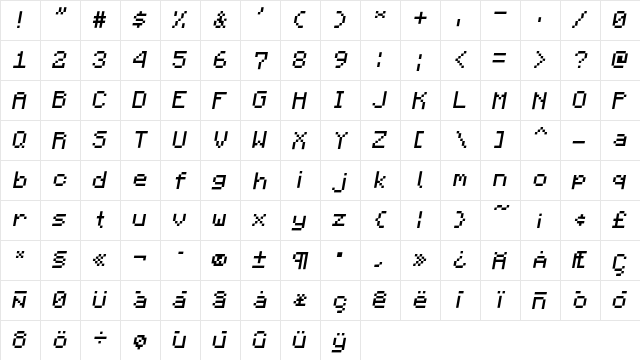
Minecraft Italic
| Foundry | JDGraphics Fonts |
| Designer | Jacob Debono |
Design Context for Minecraft Typeface
Minecraft is a composed and adaptable typeface that performs quietly and consistently across a wide range of design contexts. The dynamic lean of this cut emphasises speed and emphasis in any layout.
Pro Tip: Try Minecraft for annotation and caption copy alongside an upright companion — the contrast in angle creates a dynamic but ordered typographic system.